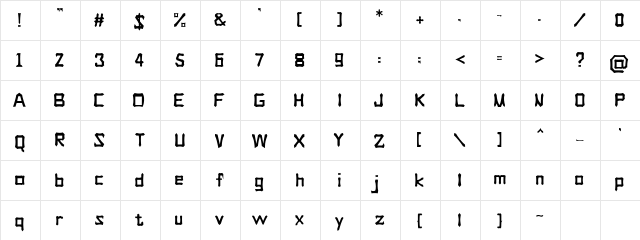
Tongkonan Regular
Design Context for Tongkonan Typeface
Tongkonan takes a measured approach to typography — its balanced proportions and neutral character make it a reliable workhorse for both digital and print work.